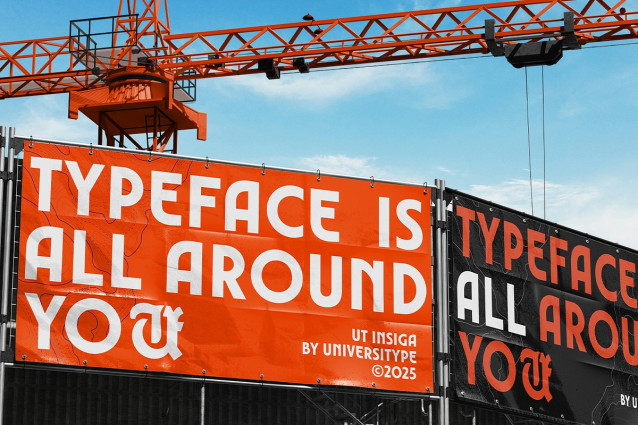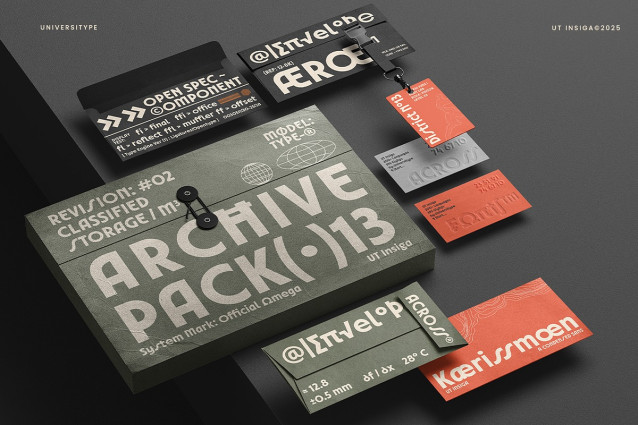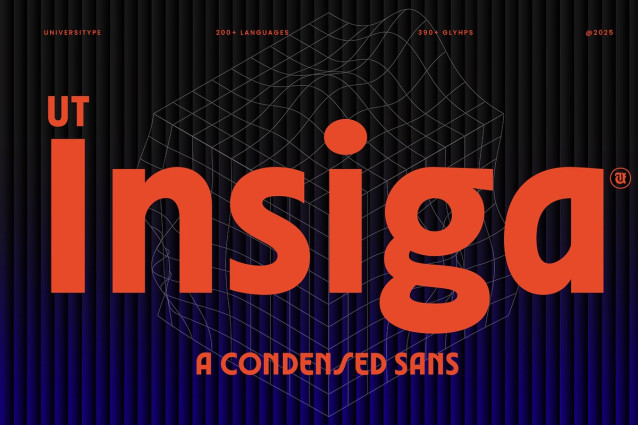
Insiga Font
Insiga Font is a modern condensed sans designed for clarity, efficiency, and strong visual presence. Its compact proportions make it ideal for space-conscious layouts, while smooth curves and balanced strokes keep the tone approachable and contemporary.
This typeface delivers a confident look without feeling rigid. It works smoothly across digital and print projects, making it a reliable choice for headlines, branding, and interface design.